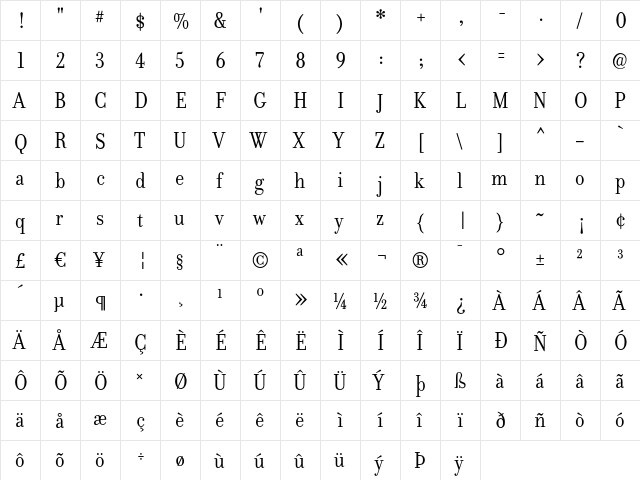
Donatora Regular
Design Context for Donatora Typeface
Donatora takes a measured approach to typography — its balanced proportions and neutral character make it a reliable workhorse for both digital and print work.